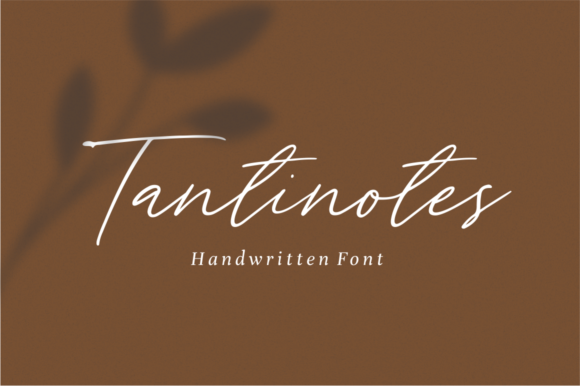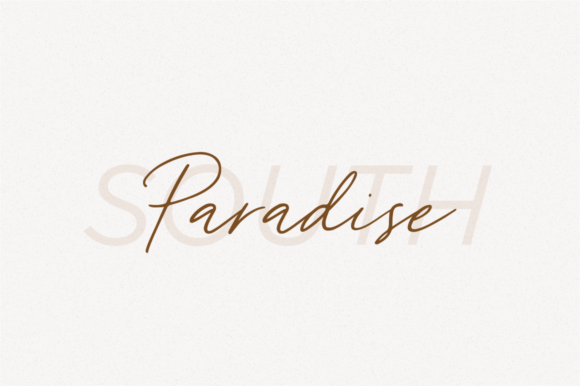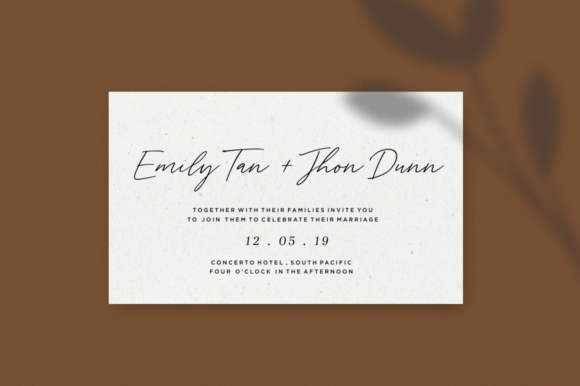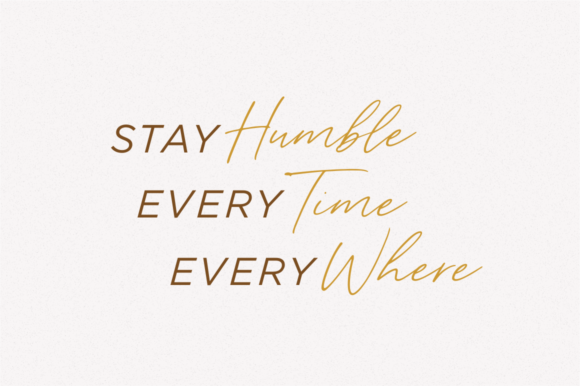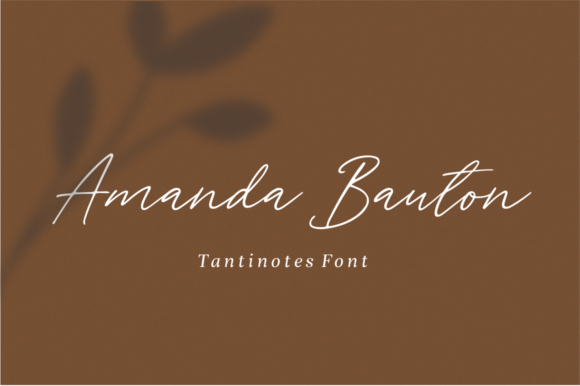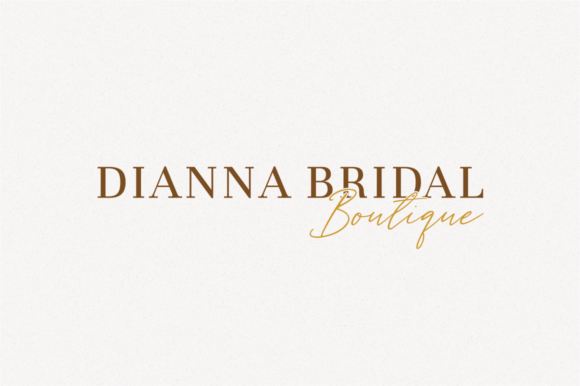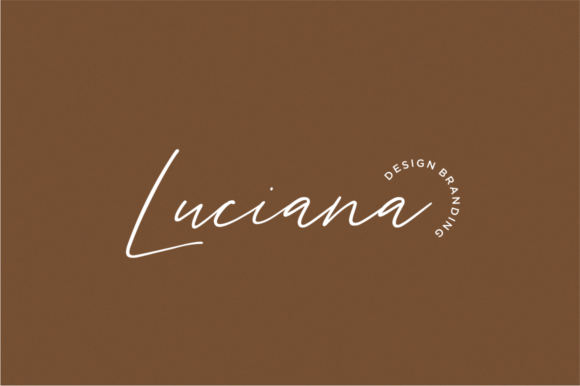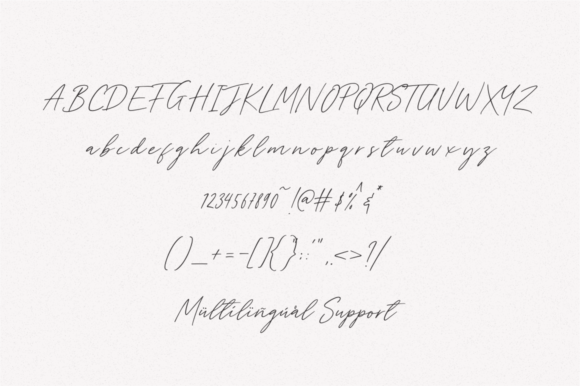
HomeScript FontsTantinotes Font Script Fonts Tantinotes Font FacebookXPinterestWhatsApp Tantinotes Font Poster 2 Tantinotes Font Poster 3 Tantinotes Font Poster 4 Tantinotes Font Poster 5 Tantinotes Font Poster 6 Tantinotes Font Poster 7 Tantinotes Font Poster 8 About Tantinotes Font Tantinotes is a light and fresh handwritten font with an authentic twist. get inspired by its beautiful charm. DOWNLOAD NOW People also explored Girly Font Rabbit Font Jolly Season Font Annalystics Font Square Happiness Font Winterfall Font Charlotte Hasanah Font I Am OK Font 306 0 TagsTantinotes Font Previous articleHighday Script FontNext articleWheslayne Script Font LEAVE A REPLY Cancel reply Comment: Please enter your comment! Name:* Please enter your name here Email:* You have entered an incorrect email address! Please enter your email address here Website: Save my name, email, and website in this browser for the next time I comment. Personal Use Free Authurium Personal Use Free Read more about this font Carnivals Personal Use Free Read more about this font Satori Personal Use Free Read more about this font Madison Script Personal Use Free Read more about this font BLOG Best Fonts for T-Shirt Design – Top 2025 Picks In 2025, t-shirt design has become more than just fashion—it's a form of self-expression. Whether you're... Free vs Paid Fonts: Why Investing in Premium Fonts Is Worth It Transform Your Website: Elevate Your Typography with 7 Best Web Font Generators To increase your work productivity, choose the most readable fonts.